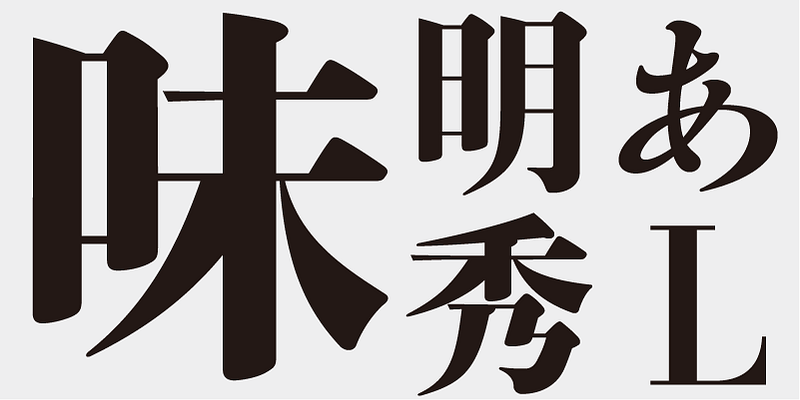
AB Ajimin Syu L/EB Font Free Download is a sophisticated Japanese Mincho-style serif font that blends classic elegance with expressive design. The “Syu” (酒) in the name suggests a connection to sake or traditional Japanese culture, while “L/EB” indicates the Light and Extra Bold weights—offering a versatile range for contrasting text hierarchies. This makes it ideal for branding, packaging (especially food and drink), editorial layouts, and signage where tradition and clarity are key.
AB Ajimin Syu L/EB Font Free Download features refined vertical strokes, high contrast between thick and thin lines, and sharp, formal serifs. Its aesthetic draws on the timeless beauty of calligraphy and traditional print, making it an excellent choice for upscale, culturally rich, or heritage-driven designs.
The font supports a wide range of Japanese scripts (Hiragana, Katakana, Kanji) along with Latin characters, making it ideal for bilingual applications that require harmony and sophistication across scripts.
Elegant, powerful, and deeply cultural—AB Ajimin Syu L/EB offers the perfect fusion of traditional grace and typographic precision for refined Japanese design.